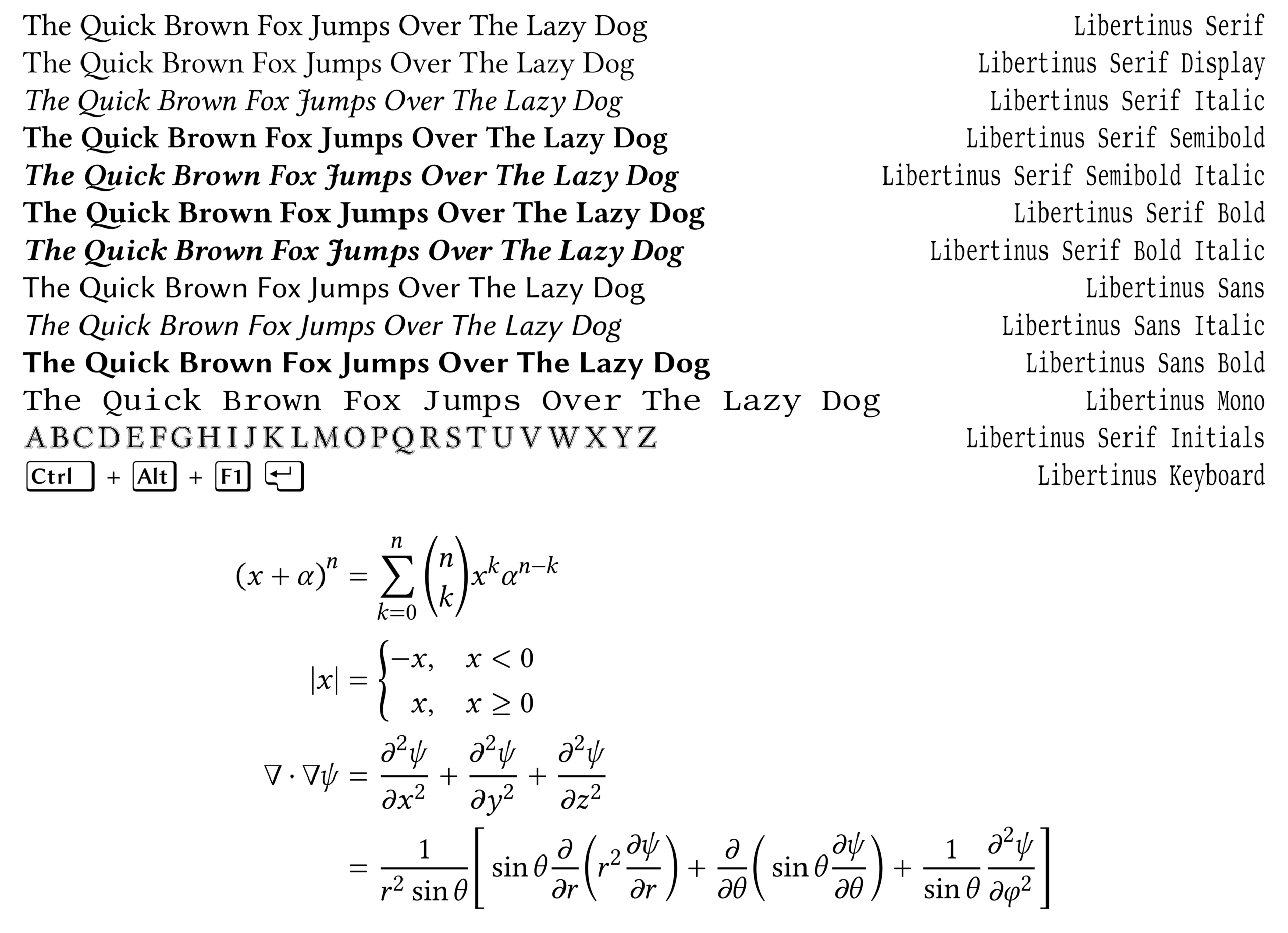
Libertinus Fonts is a comprehensive typeface collection derived from Linux Libertine and Linux Biolinum.
It offers serif, sans-serif and monospaced families together with a dedicated OpenType mathematics font.
The collection also includes display, decorative initials and keyboard-oriented typefaces for specialist typography and technical documentation.
- Provides Libertinus Serif in regular, semibold and bold weights with corresponding italic styles.
- Includes Libertinus Sans in regular, bold and italic variants.
- Offers a monospaced typeface derived from the serif family.
- Includes an OpenType mathematics font with additional glyphs and features for mathematical typesetting.
- Works with OpenType mathematics-capable applications including LuaTeX and XeTeX.
- Provides a display face optimized for use at large sizes.
- Includes outlined capital letters suitable for drop caps and decorative typography.
- Offers a keyboard typeface that places key outlines around characters for technical documentation.